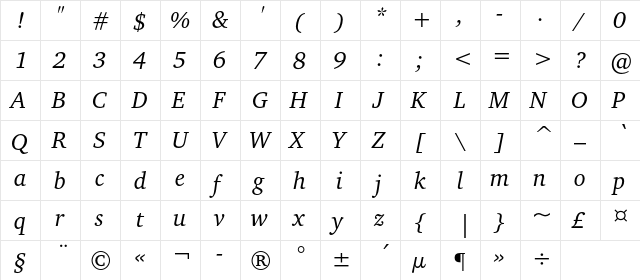
CharterC Italic Font Preview
CharterC Italic
Design Context for CharterC Typeface
CharterC takes a measured approach to typography — its balanced proportions and neutral character make it a reliable workhorse for both digital and print work. The dynamic lean of this cut emphasises speed and emphasis in any layout.
Pro Tip: Try CharterC for annotation and caption copy alongside an upright companion — the contrast in angle creates a dynamic but ordered typographic system.